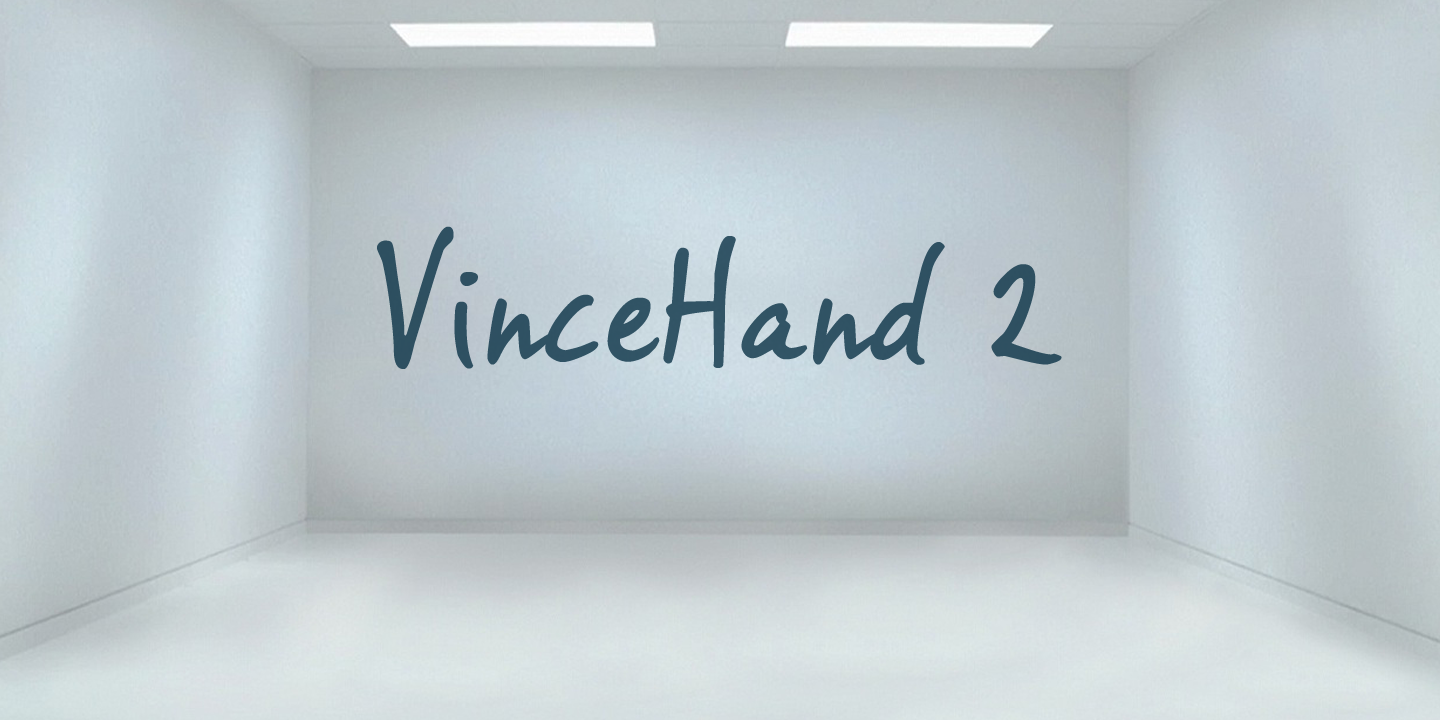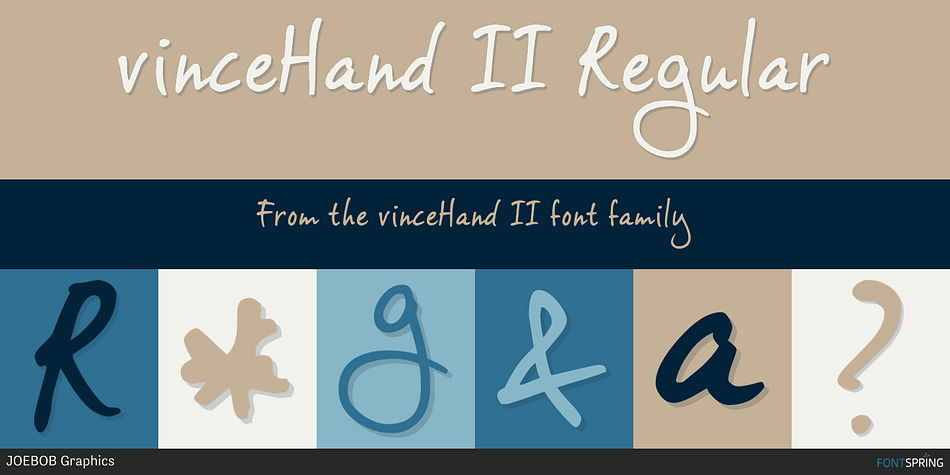
vinceHand II Regular
vinceHand II is a hand drawn font published by JOEBOB Graphics.
This is what my good friend and painter Vincent’s handwriting looks like. I have put in a couple of ligatures and I hope you like it.